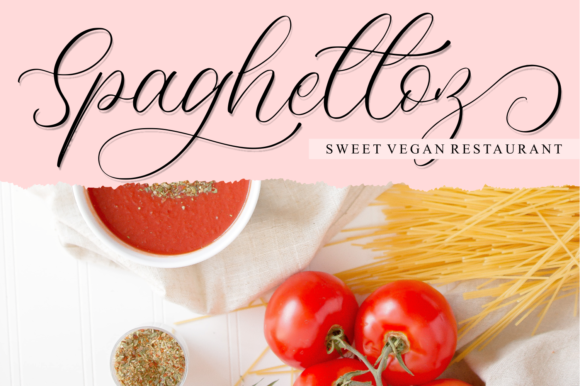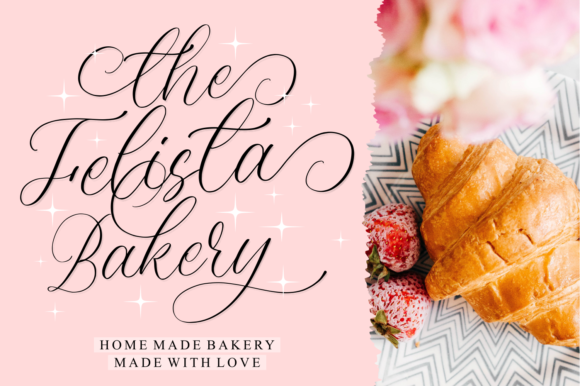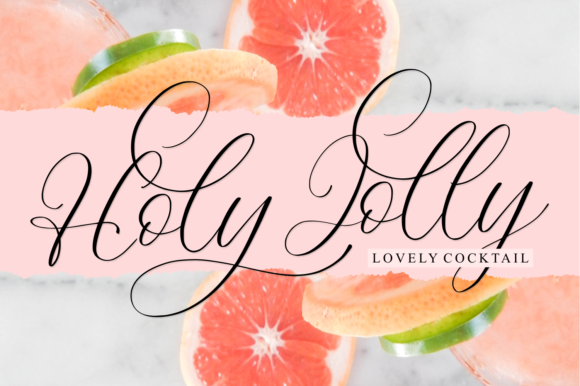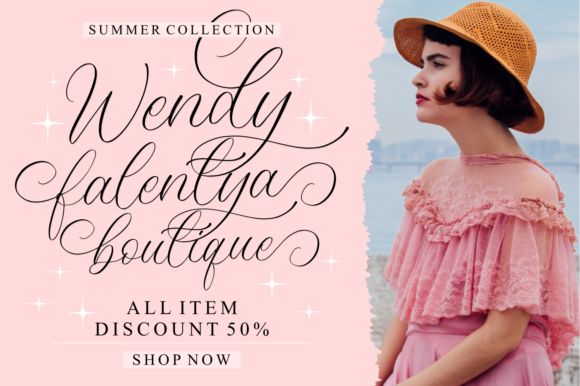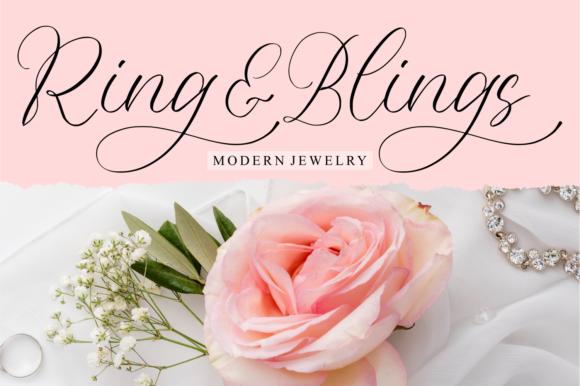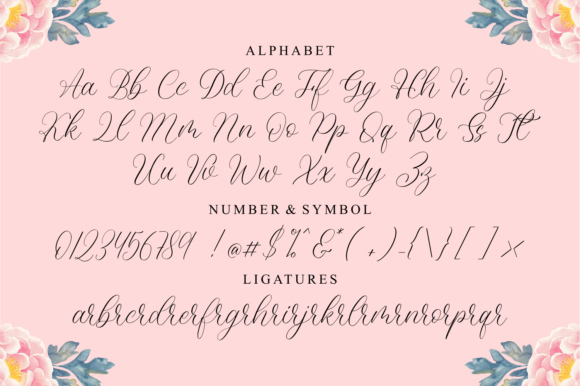
Introduction to Mondylove Font
Do you ever find yourself scrolling through your favorite design inspiration board, searching for that perfect font to elevate your next creative project? I know I do. It’s that moment of pure excitement when you stumble upon a font that speaks to you, and you just can’t wait to dive in and start designing. For me, that moment arrived when I discovered the Mondylove Font.
This flowing handwritten font has stolen my heart with its elegant touch and timeless style. With its PUA encoding, you can access all the glyphs and swashes with ease, making it the perfect design resource for any creative project. Whether you’re working on a free download or a high-quality design, the Mondylove Font is sure to bring a touch of sophistication to your work.
Key Features of Mondylove Font
- High-quality design resource with a unique, playful style perfect for creative projects.
- Unique characteristics include its cursive script and decorative flourishes, making it ideal for titles, headings, and other design elements that require a touch of elegance.
- Perfect for designers working on creative projects, such as branding, advertising, and editorial design, where a distinctive and eye-catching font is essential.
Honest Review: Mondylove Font
I recently stumbled upon the Mondylove Font while searching for a unique design resource for a creative project. As a designer, I’m always on the lookout for high-quality fonts that can elevate my work, and I must say that Mondylove Font has caught my attention.
Overall, I’m impressed with the Mondylove Font, and I think it’s a great addition to any designer’s toolkit. With its high-quality design and versatility, it’s definitely worth checking out – especially if you’re looking for a free design resource for a creative project.
Tips for Getting the Most Out of Mondylove Font
The Mondylove Font is a versatile design resource that can be used in a variety of applications, including logos, graphics, presentations, reports, and other documents. Its high-quality design makes it an ideal choice for creative projects that require a professional look.